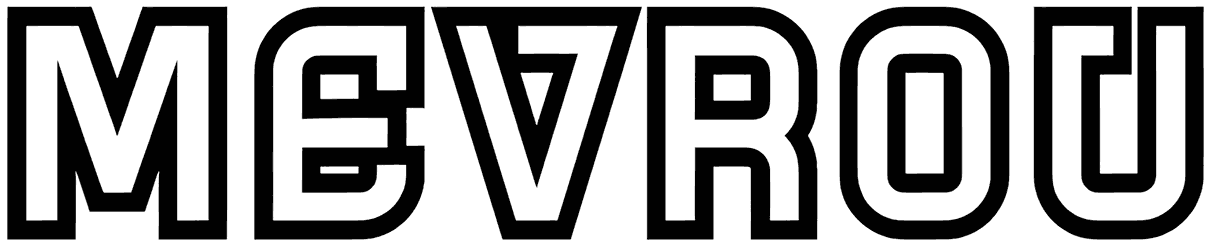
Mevrou Font
For reaching first base in designing any magazine, posters, branding, or other things, you need an outline font with a new face to be distinct from others.
Herein, Mevrou, as a fancy font with only capital letters, appears to show off its unique and stable traits to push you as a front runner in designing beats. Last but not least, in case you need more fonts in this category, we strongly advise you to have a look at our library.